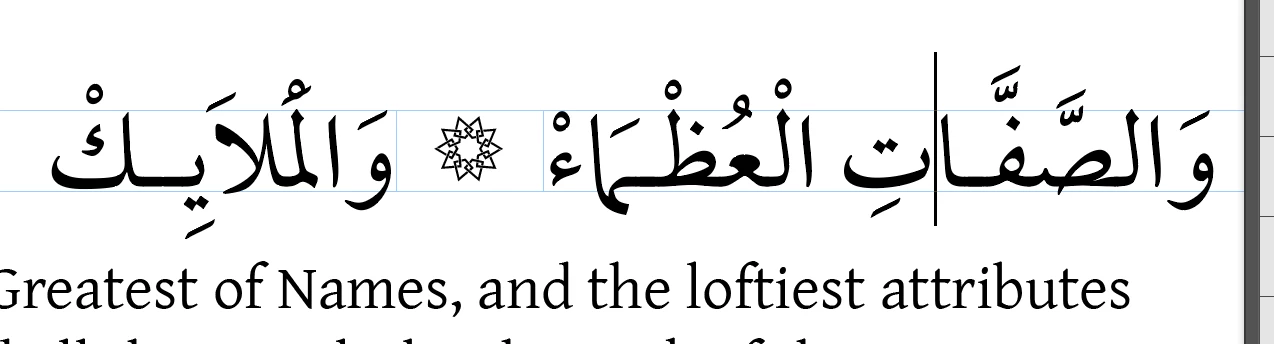
Arabic Font tashkeel issue
I am using mylotus arabic font.
The sakin of the lam and the fatha on the meem are clashing.
Is it possible to move them horizontally?
This is actually a trap that InDesign falls into when applying Ligatures. See, InDesign swap الـملا with الملا so the text will look more appealing. You can either turn off Ligatures from the Character panel fly-out menu or, adjust the position of tashkeel from the "Diacritic Positioning" panel.
The Diacritic positioning panel can be found here Window > Type > Diacritic Positioning where you have the chance to move tashkel horizontally or vertically.
I don't speak Arabic at all, but did you check if the problem occurs if you use this font in other softwares?  You should contact the font designer, and I don't think that it can be fixed in InDesign (but I am not 100% sure since I do not use the ME version).
It has the same problem in word.
So, it confirms that the problem is in the font itself. Contact the designer if you can.